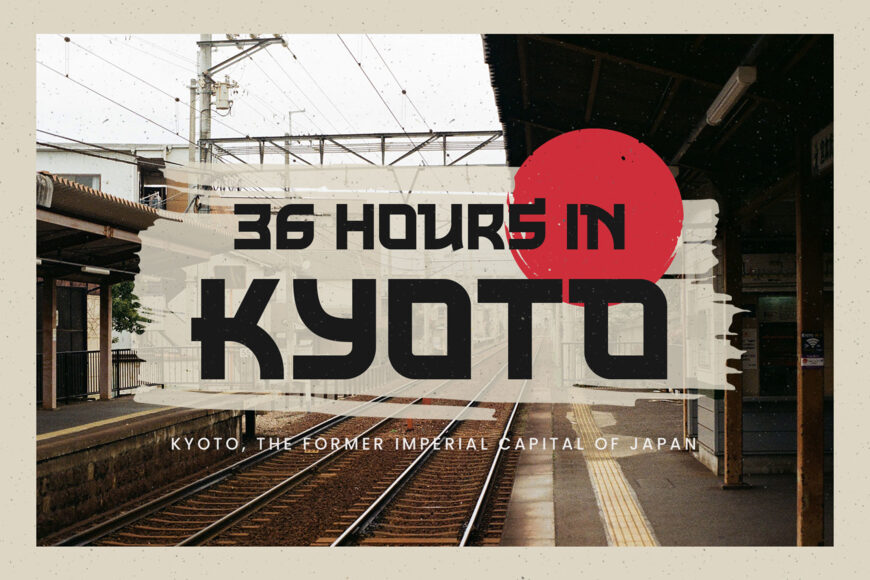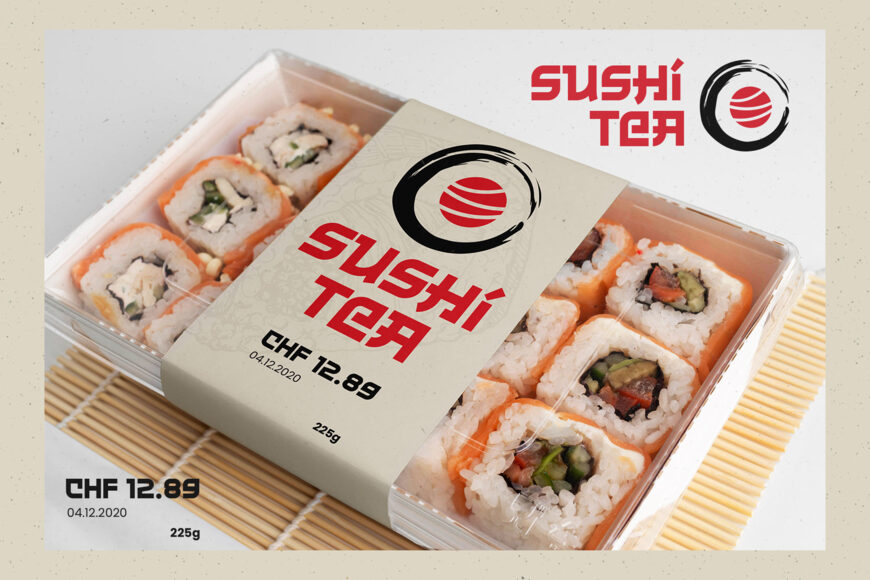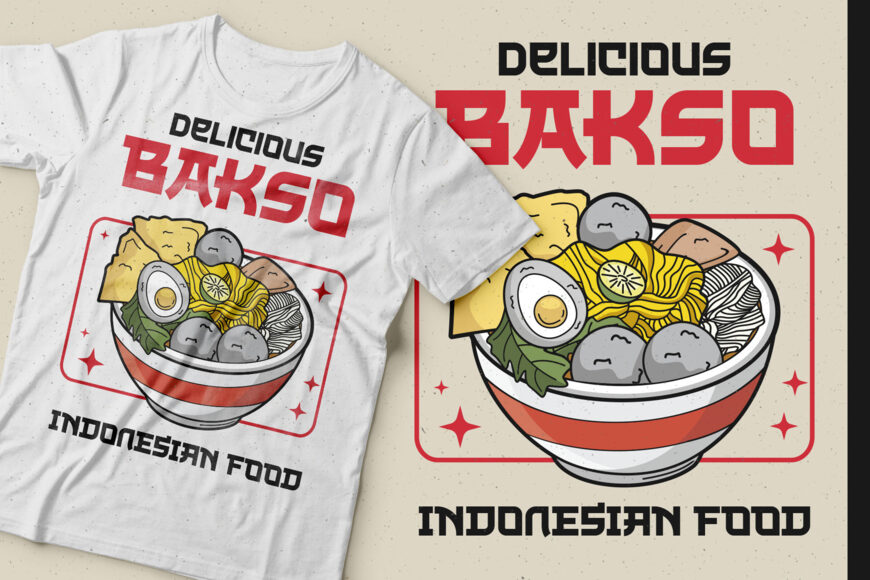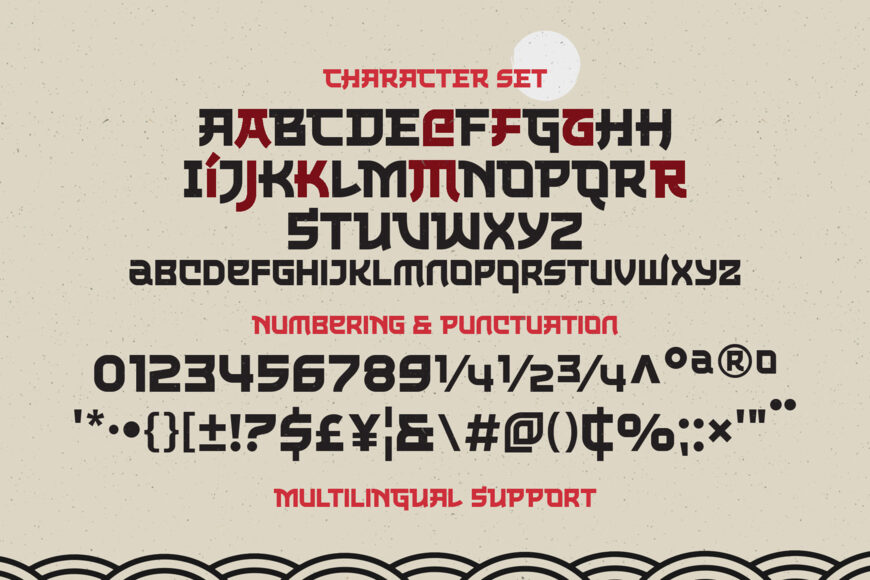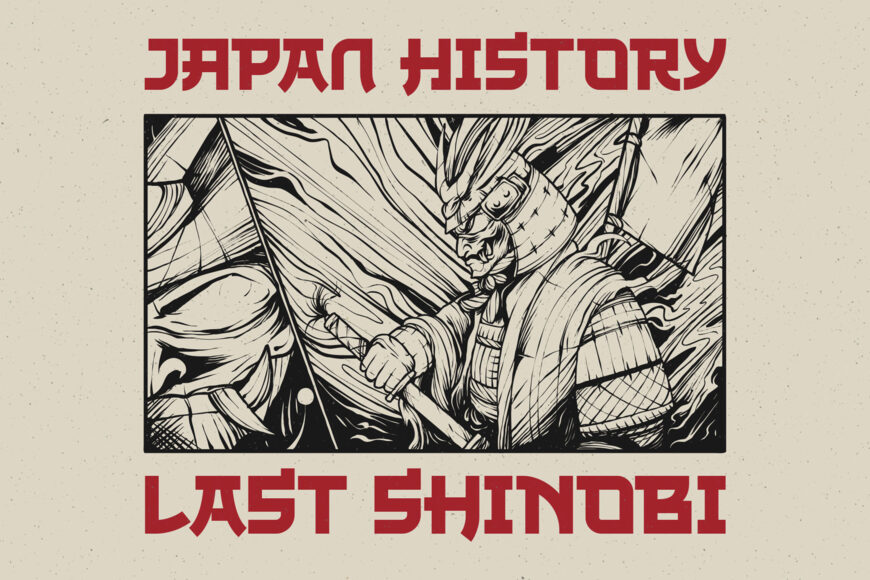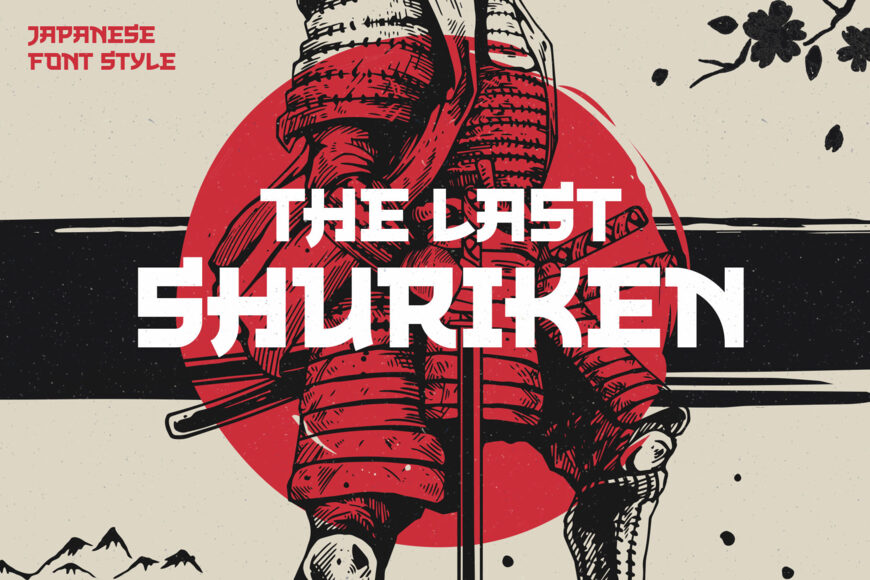
The Last Shuriken Font
Introducing our brand new font “The Last Shuriken” a Japanese-style typeface. Inspired by modern Japanese food branding and anime title. Designed in a bold stroke, this font is an all-caps font that has the same cap height and different shapes. The Last Shuriken is perfect for display, especially for Japanese food, title, logo, poster, short quote, movie, games, apparel.